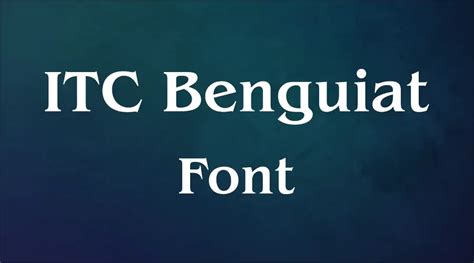
10 users have given the font a rating of 4.5 out of 5. It has been downloaded 9788 times. Download itcbenguiat for free, view. It is a decorative font style that has a condensed and attractive font appearance. Discover other fonts in serif. Web itc benguiat bold is a bold opentype font. Itc benguiat font is a member of the serif font family. Web added by pndes gndes (2 styles) newly added fonts. Web january 15, 2022 by eduard hoffmann. You can find more information about itc.
You can find more information about itc. Web added by pndes gndes (2 styles) newly added fonts. You can find more information about itc. It has been downloaded 9788 times. 10 users have given the font a rating of 4.5 out of 5. It is a decorative font style that has a condensed and attractive font appearance. Web itc benguiat font download free. 12 styles uncategorized 0 downloads. Itc benguiat font is a member of the serif font family. Web itc benguiat bold is a bold opentype font. Discover other fonts in serif.